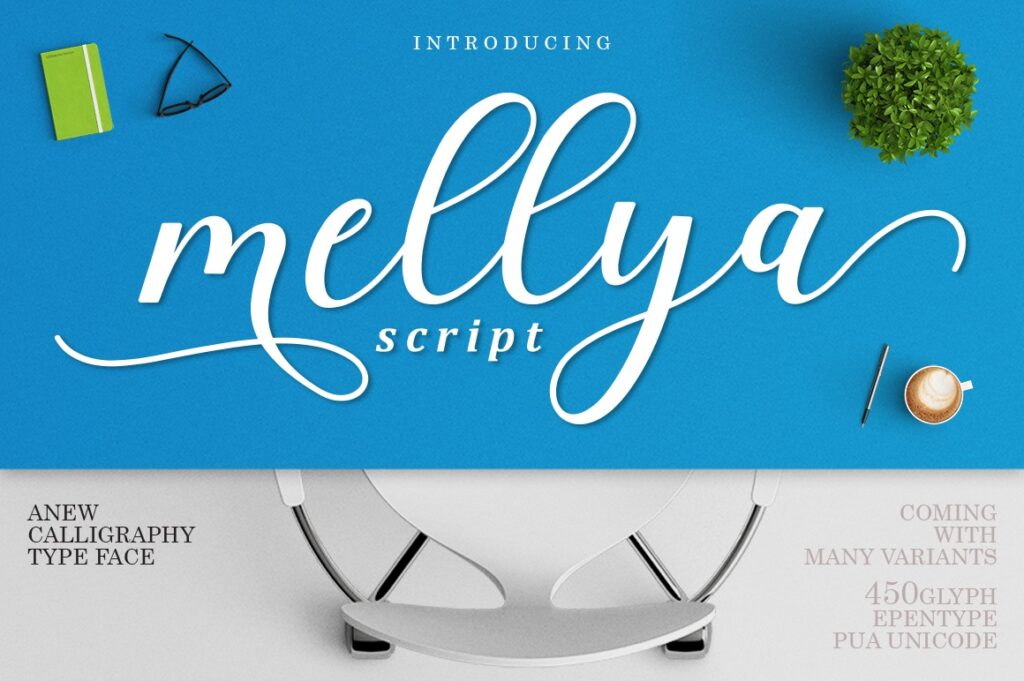
Mellya Calligraphy Script Font
Mellya Font is a beautiful and interesting calligraphy handwriting font. font looks sweet and full of the best characters. you can use this font in your design product range like invitation, mockup, embossed, branding card and others. Bonus is Extra Swashes.
Mellya Font includes a full set of large and attractive international letters, numbers, punctuation and ligatures. All lowercase letters include the beginning and end of the swashes. Also, follow multilingual symbols. The script is encoded with PUA Unicode, which allows full access to all additional characters without special design software.